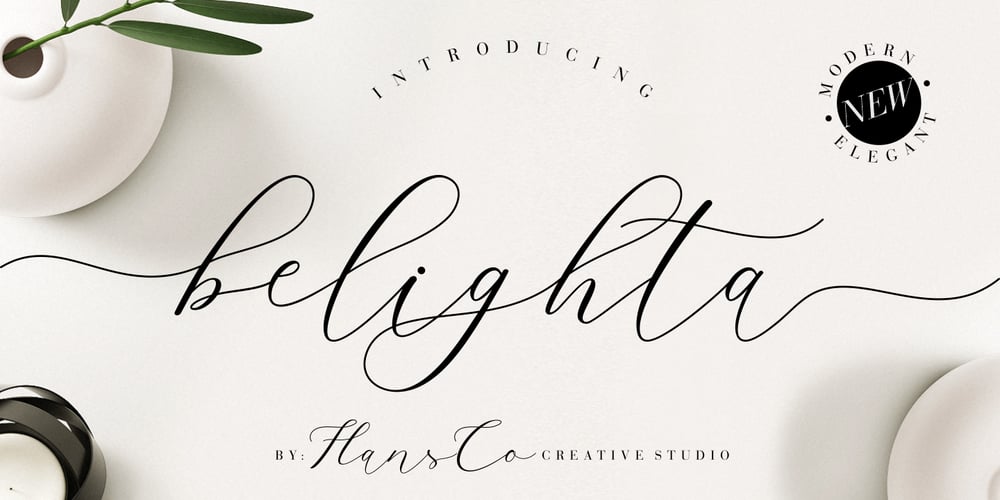
Belighta
Belighta Font Family was designed by Burhan Afif and published by HansCo. Belighta contains 2 styles and family package options. Belighta is an elegant handwritten script font with a clean and modern touch. This font was inspired by a handwriting with a feminine style in ballpoint ink but with clean line and the same wights. This font come with many alternate tails in lowercase that gives a unique look for your logos, business card, wedding invitations, quotes, advertisements, and more.Highly recommended to use it in OpenType capable software such as Adobe Illustrator, Adobe InDesign, Adobe Photoshop Corel Draw X version, Afinity and more. Tutorial how to Install & use Alternate / Special Character : https://hanscostudio.com/tutorial/Enjoy!